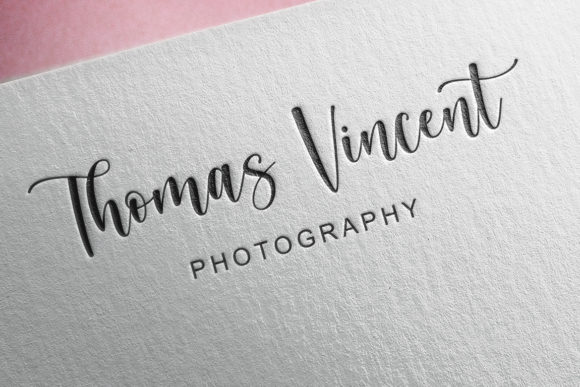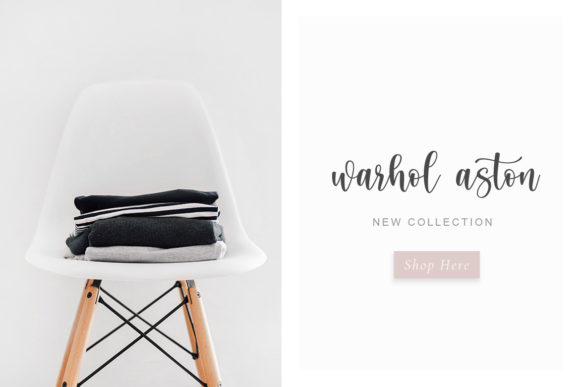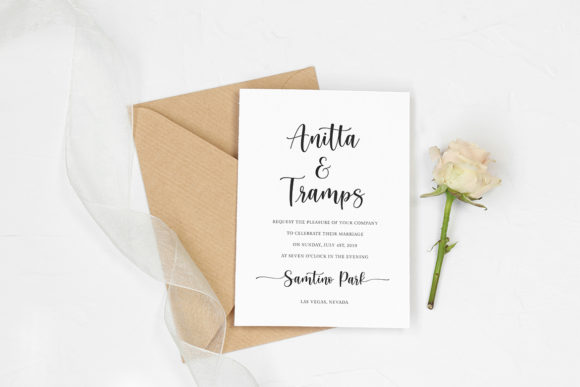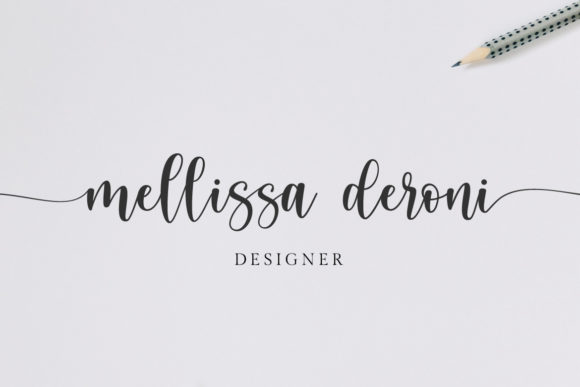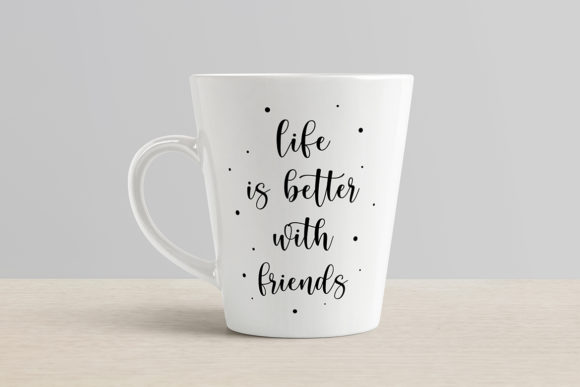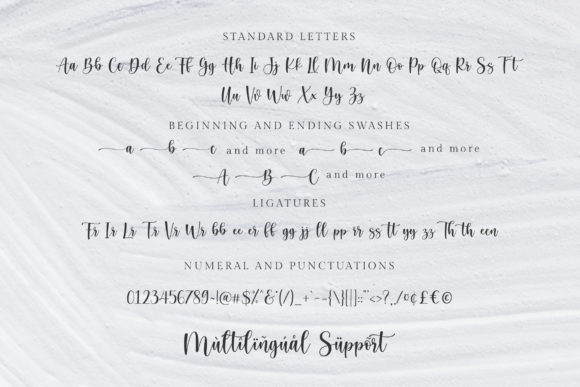
Cream Candy Font: Elevate Your Design with Stunning Swashes
Are you looking for a beautiful modern script font to add a touch of elegance to your design projects? Look no further than Cream Candy Font. This gorgeous font features stunning swashes and 22 ligatures that will elevate your designs to the next level. In this article, we’ll dive into the details of Cream Candy Font and explore how it can enhance your creative projects.
What is Cream Candy Font?
Cream Candy Font is a modern script font designed to bring a sense of beauty and sophistication to your designs. Its elegant strokes and flowing curves make it perfect for a variety of projects, from branding and advertising to packaging and digital media. With its stunning swashes and ligatures, Cream Candy Font is sure to make your designs stand out from the crowd.
Key Features of Cream Candy Font
- 22 Ligatures: Cream Candy Font features 22 ligatures that allow you to create unique and beautiful connections between letters. These ligatures add an extra layer of elegance to your designs and make them more visually appealing.
- Stunning Swashes: The font comes with a range of stunning swashes that can be used to add a touch of drama and flair to your designs. These swashes are perfect for headlines, titles, and other design elements where you want to make a statement.
- Modern Script Style: Cream Candy Font has a modern script style that is both elegant and sophisticated. Its flowing curves and smooth strokes make it perfect for designs where you want to convey a sense of luxury and refinement.
How to Use Cream Candy Font in Your Designs
Cream Candy Font is versatile and can be used in a variety of design projects, including:
- Branding and Advertising: Use Cream Candy Font to create stunning logos, advertisements, and marketing materials that showcase your brand’s personality and style.
- Packaging Design: Add a touch of elegance to your packaging designs with Cream Candy Font. Its beautiful swashes and ligatures make it perfect for product labels, packaging inserts, and other design elements.
- Digital Media: Use Cream Candy Font to create engaging digital content, such as social media graphics, blog posts, and website headers.
Tips for Getting the Most Out of Cream Candy Font
Here are some tips for getting the most out of Cream Candy Font:
- Experiment with Ligatures: Don’t be afraid to experiment with the font’s ligatures to create unique and beautiful connections between letters.
- Use Swashes Wisely: Use the font’s swashes to add a touch of drama and flair to your designs, but use them sparingly to avoid overwhelming the design.
- Pair with Other Fonts: Pair Cream Candy Font with other fonts to create a unique and visually appealing typography combination.
Cream Candy Font is a beautiful modern script font that is sure to elevate your design projects to the next level. With its stunning swashes and 22 ligatures, it’s perfect for designers and crafters who want to add a touch of elegance and sophistication to their designs. Whether you’re working on a branding project, packaging design, or digital media, Cream Candy Font is a versatile and beautiful choice.